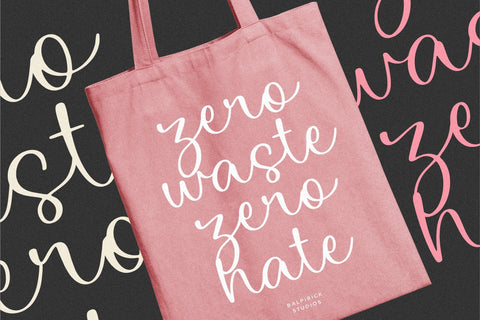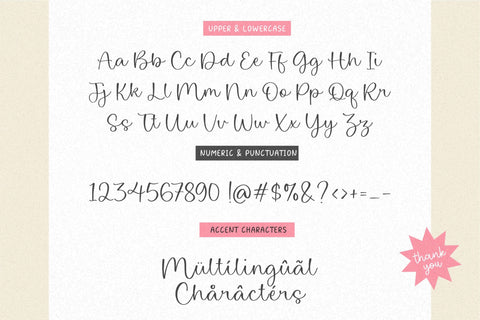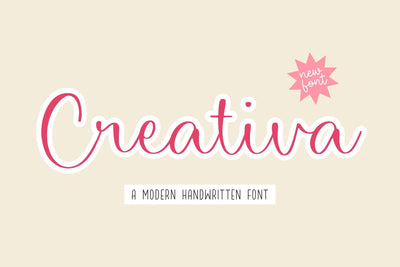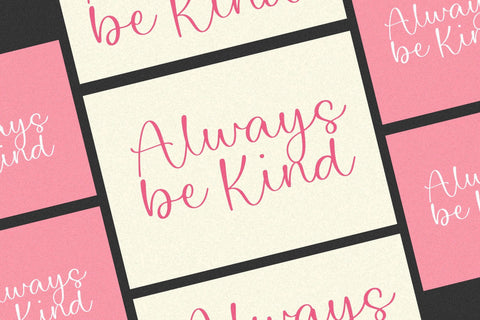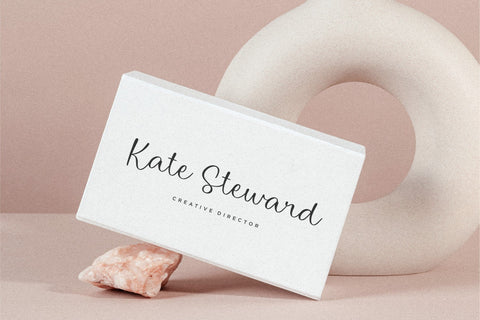
Creativa a Modern Handwritten Font
Creativa is a Modern Handwritten Font.
Whether you’re using it for crafts, digital design, presentations, or making greeting cards, this font has the potential to become your favorite go-to font, no matter the occasion!